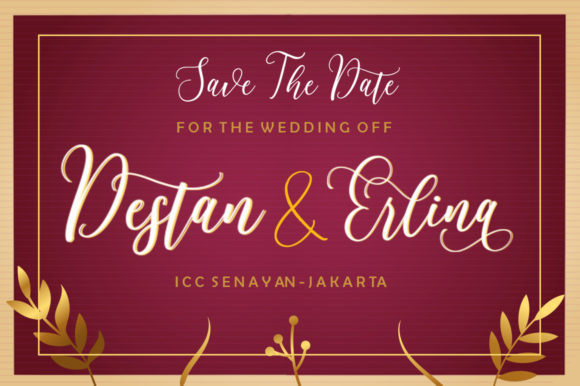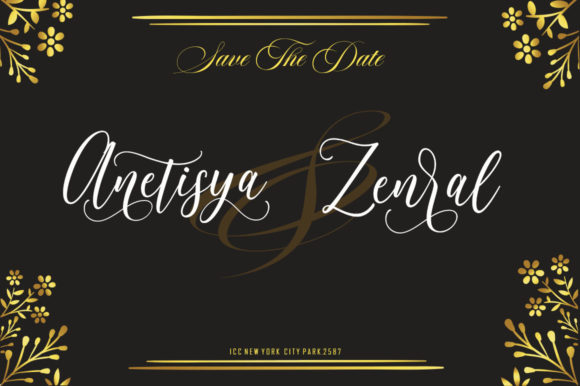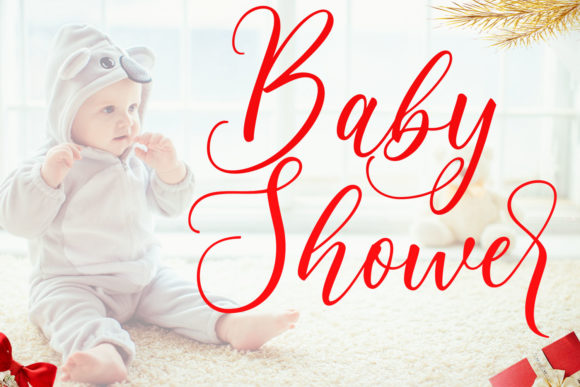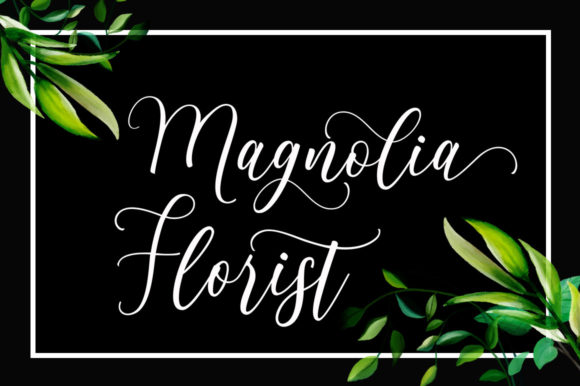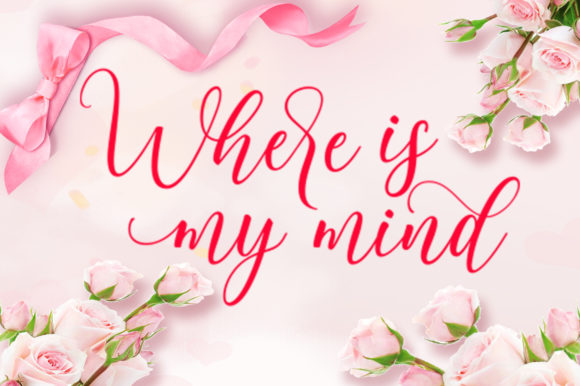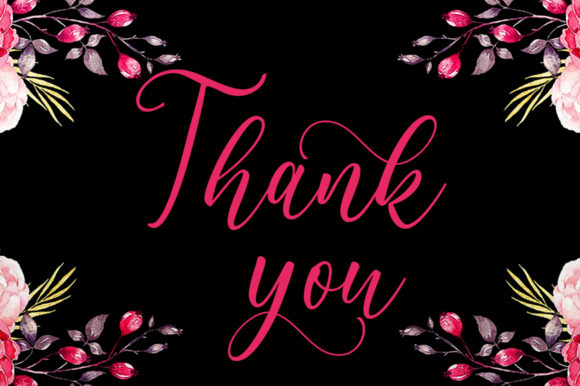
Neradila Font
About Neradila Font
Introducing “Neradila,” an elegant and flowing handwritten font that exudes sophistication and grace. With its versatility and stunning design, “Neradila” is the perfect choice for a wide array of design projects. As a PUA encoded font, accessing all of its beautiful glyphs and swashes is a breeze, making your creative process seamless and enjoyable.
“Neradila” showcases a varying baseline, adding a touch of dynamic charm to its elegant appearance. Its smooth lines and stunning alternates elevate the font’s allure, making it a standout choice for any creative project.
Imagine using “Neradila” to create breathtaking wedding invitations that evoke a sense of timeless romance and refinement.
For logo design and branding, “Neradila” becomes a symbol of sophistication and class, adding a touch of elegance to your brand identity.
In quotes and social media posts, “Neradila” brings a sense of beauty and grace, captivating your audience and leaving a lasting impression.
With its versatile style and elegant flow, “Neradila” becomes an indispensable asset for elevating your designs to new heights of beauty and sophistication.
In conclusion, “Neradila” is more than just a font; it’s a celebration of elegance and timeless beauty. With its flowing and versatile style, “Neradila” becomes an essential companion for all your design projects. Fall in love with the captivating allure of “Neradila” and watch as your creations come to life with sophistication and grace. Let your imagination soar in the elegant and flowing embrace of “Neradila,” the handwritten font that defines beauty and brings a touch of class to every design.